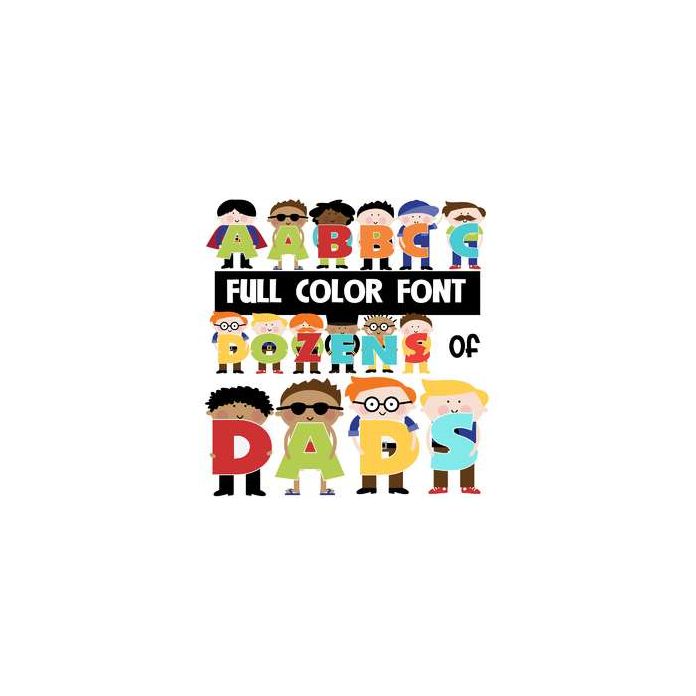
This full-color font features dozens of colorful dads holding letters of the alphabet. This font works best for titles, displays, posters and more. Please note color fonts will show as black in non compatible programs. This font type is compatible with Silhouette Studio.